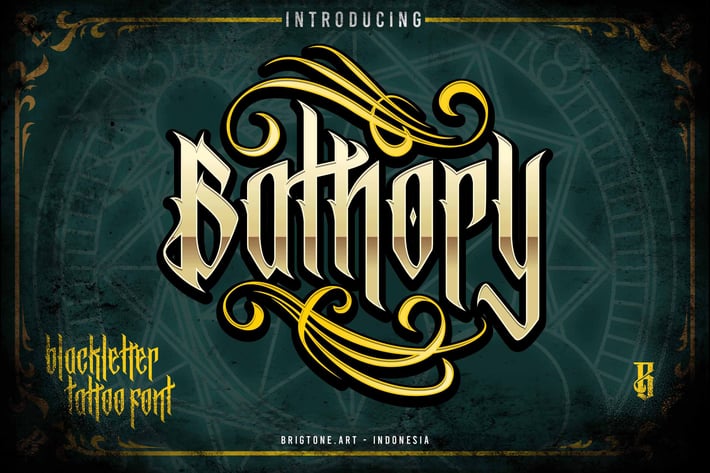
Bathory - Blackletter font
Bathory is modern Blackletter include uppercase, lowercase, punctuation, and accented support. and Bathory font include italic.